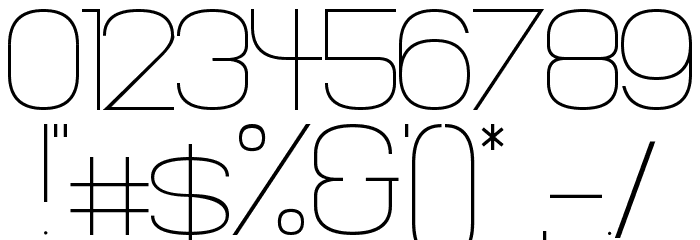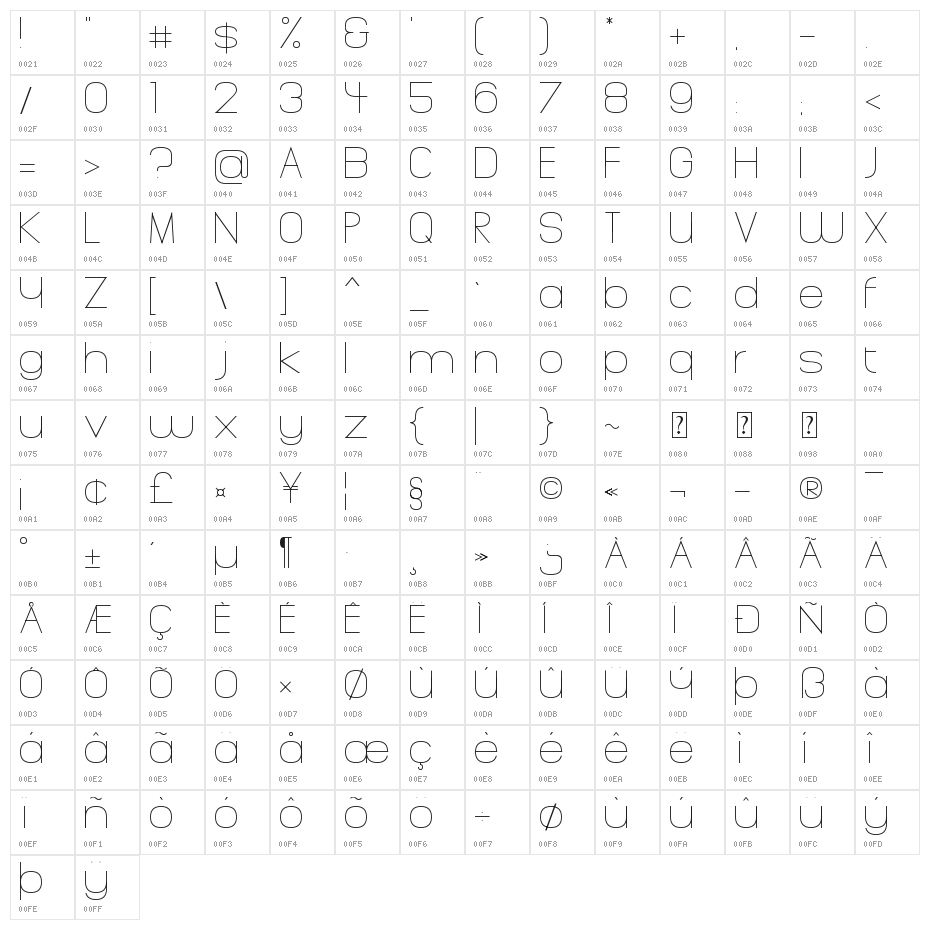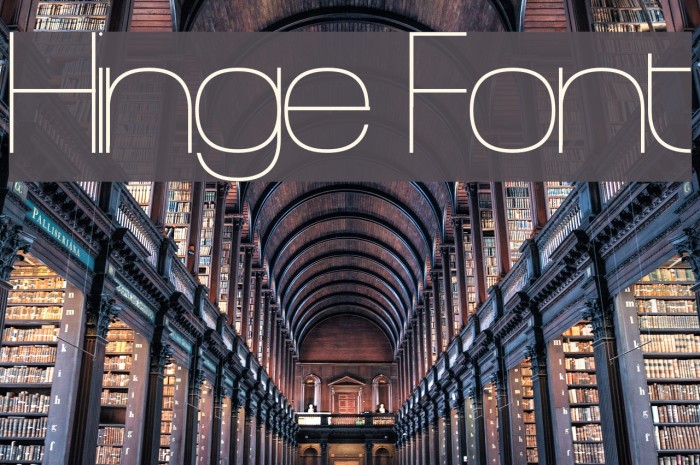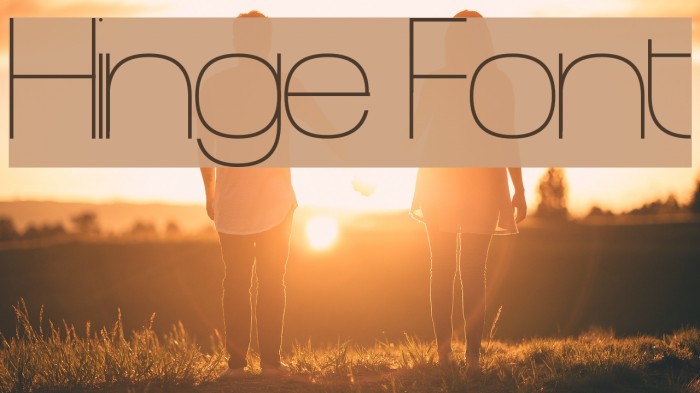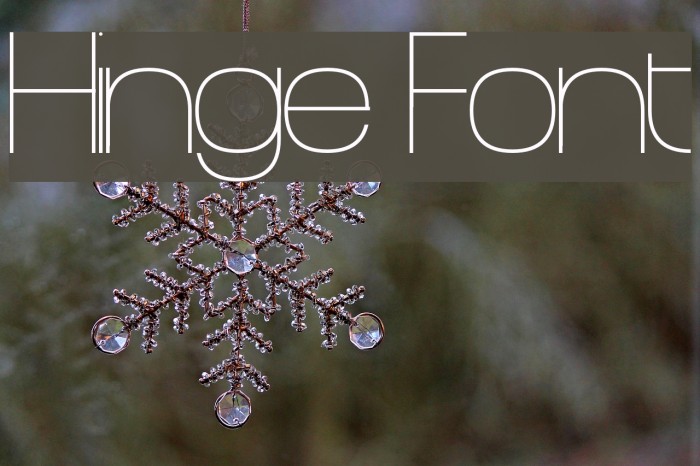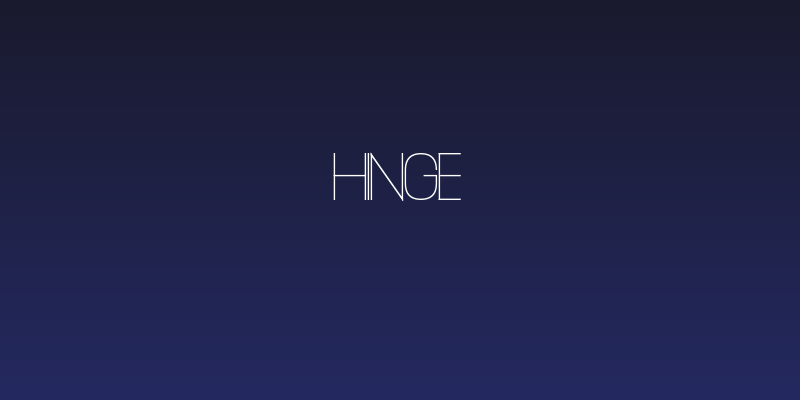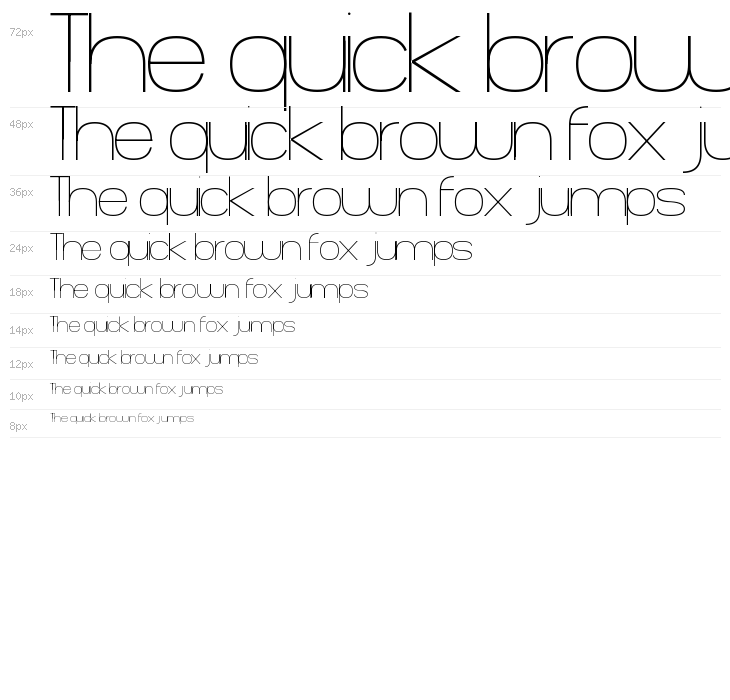
Hinge Font
Hinge Description
This font features a sleek, modern design with thin, elongated letterforms that convey a sense of elegance and minimalism. The characters are constructed with clean, straight lines and subtle curves, giving it a futuristic and sophisticated appearance. The uppercase and lowercase letters maintain a consistent height, creating a uniform look across the text. Numbers and special characters are designed with the same thin strokes, ensuring a cohesive style throughout. The overall aesthetic is both stylish and functional, making it suitable for a variety of contemporary design applications.
| Use Case | Headlines, Logos, Editorial Design |
| Proposed Projects | Ideal for modern branding, tech-related projects, minimalist posters, and sleek editorial layouts. |